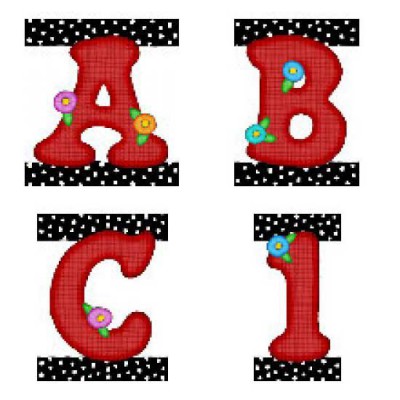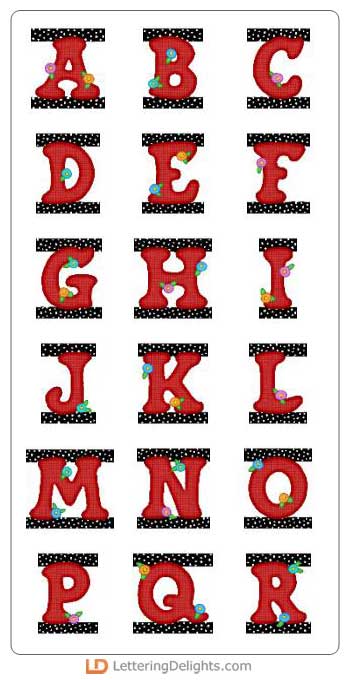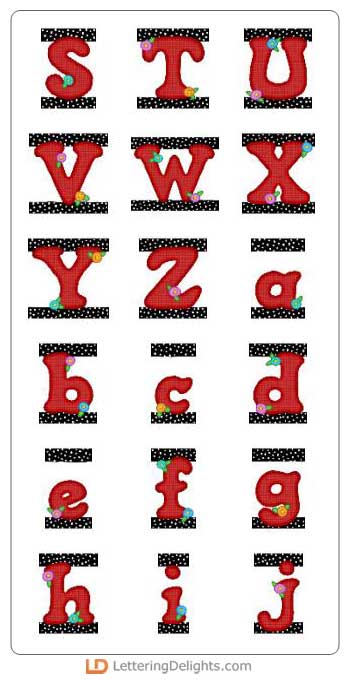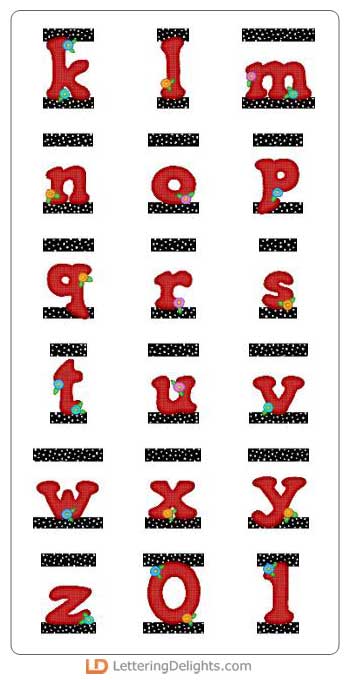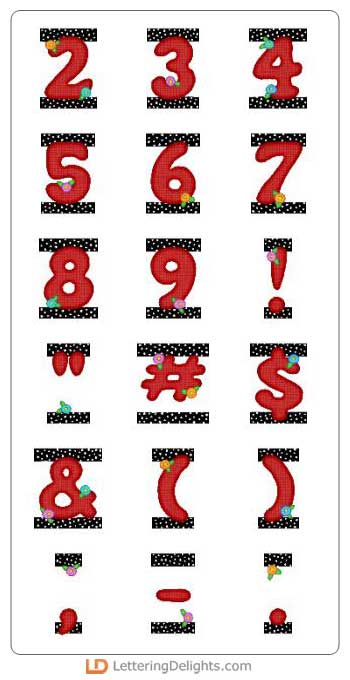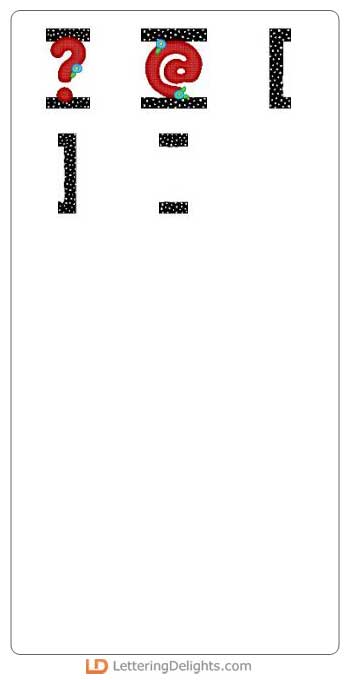
Download this creative lettering alphabet from LetteringDelights.com. The Dots & Doodles alphabet is perfect for scrapbooking, page titles, party decorations, cards, gift tags and more. Bring your paper creations to life easily and give them a crafty, country feel with these posie adorned letters.